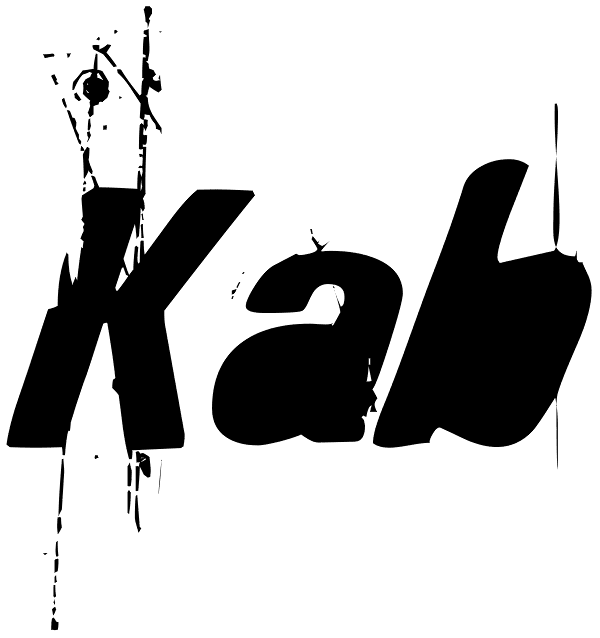
Kab
Kab has a big impact, is very legible and at the same time has plenty of details that makes it really unique. Perfect for headers and display, it also can be used at smaller sizes and even as a body text with great results. Complete character set.